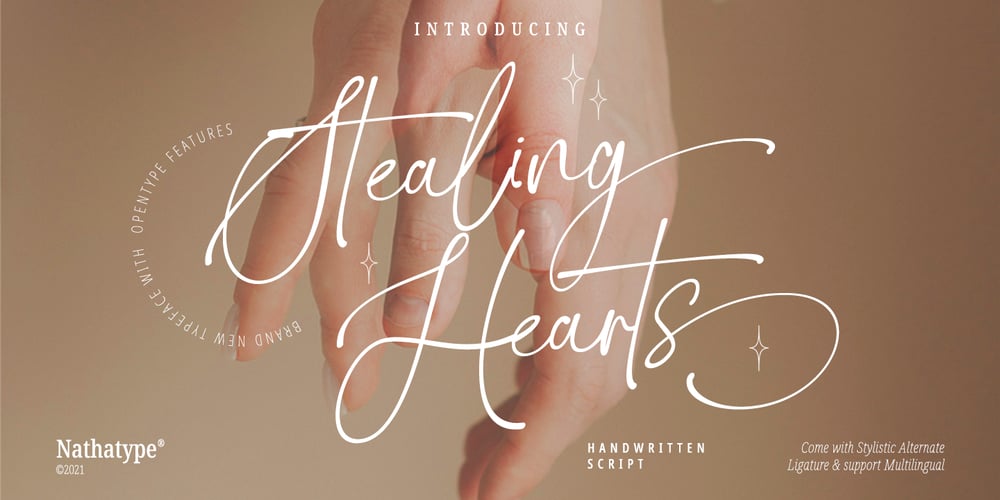
Stealing Hearts Font Family was designed by Donis Miftahudin and published by Nathatype. Stealing Hearts contains 1 styles and family package options. Looking for a beautiful font to captivate your audience, clients, or party guests? If you need to create invitations, have a t-shirt branding company, or whatever it is – then this is the perfect font for you. Stealing Hearts-A Handwritten Script FontStealing Hearts is a elegant script typeface. Designed primarily as a captivating handcrafted with style. Every swash, stroke, and curve was created to entice happiness and elegance. Ideal to create amazing headings, invitations, logos, and social media graphics.Our font always includes Multilingual Support to make your branding reach a global audience. Features: Ligatures Stylistic Sets PUA Encoded Numerals and Punctuation Thank you for downloading premium fonts from Nathatype